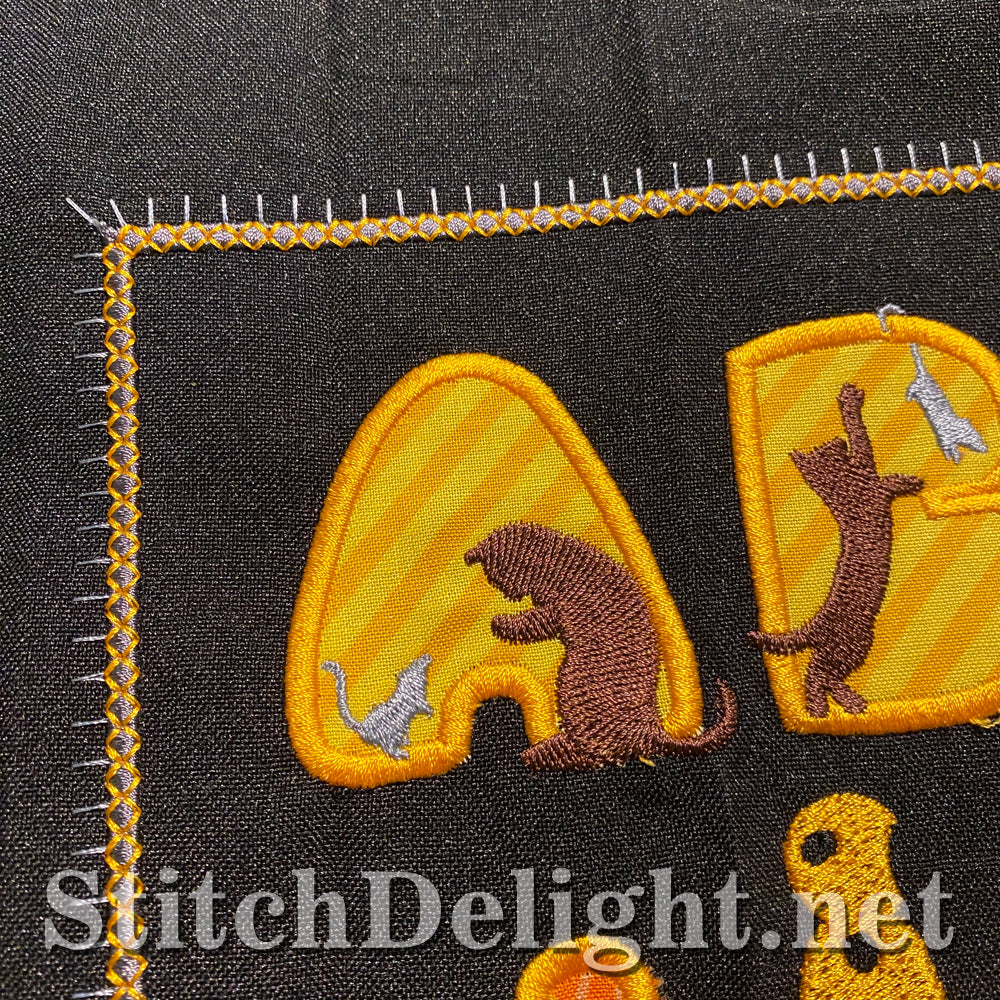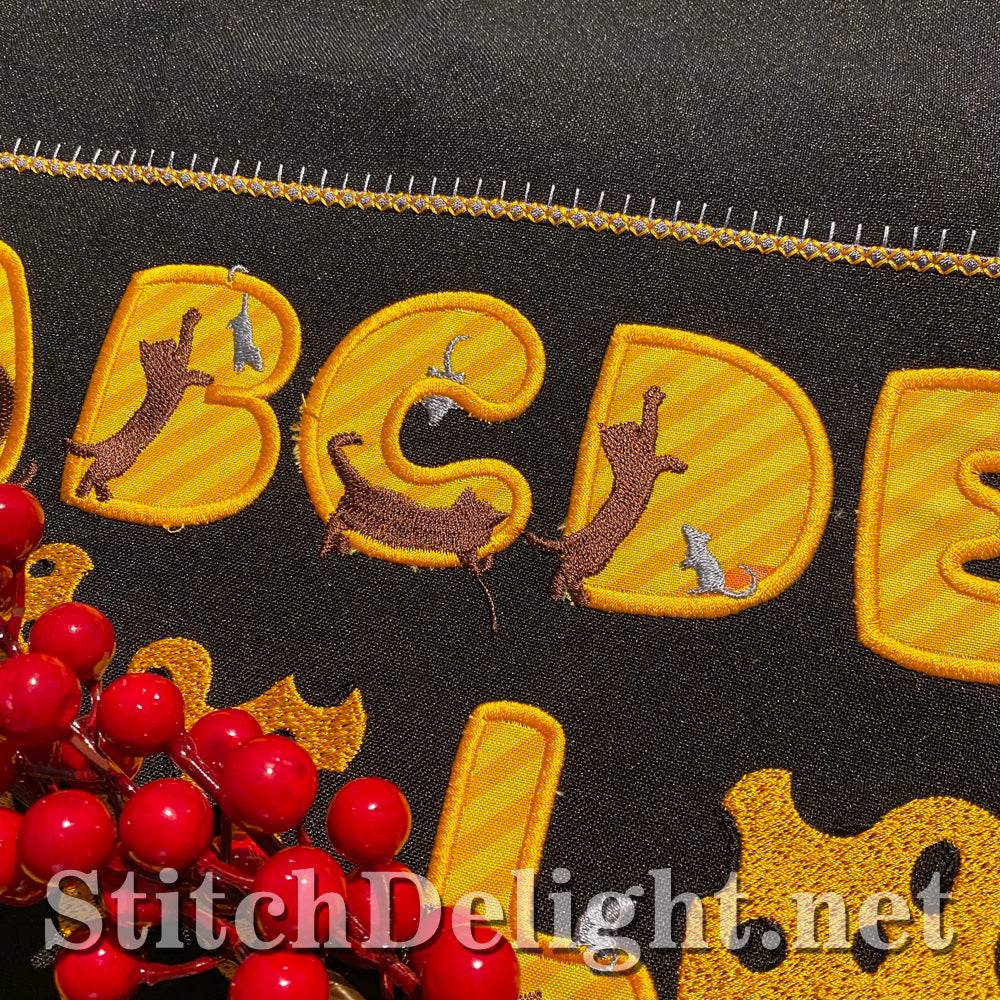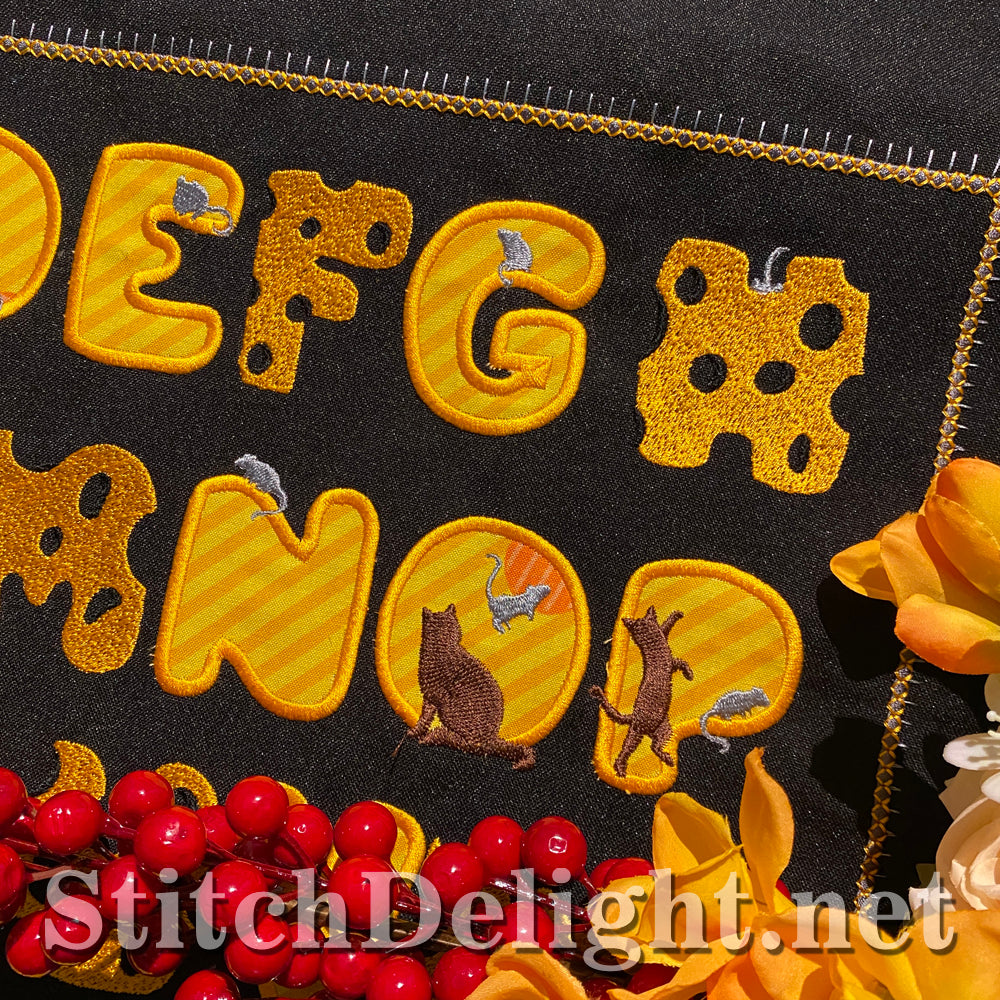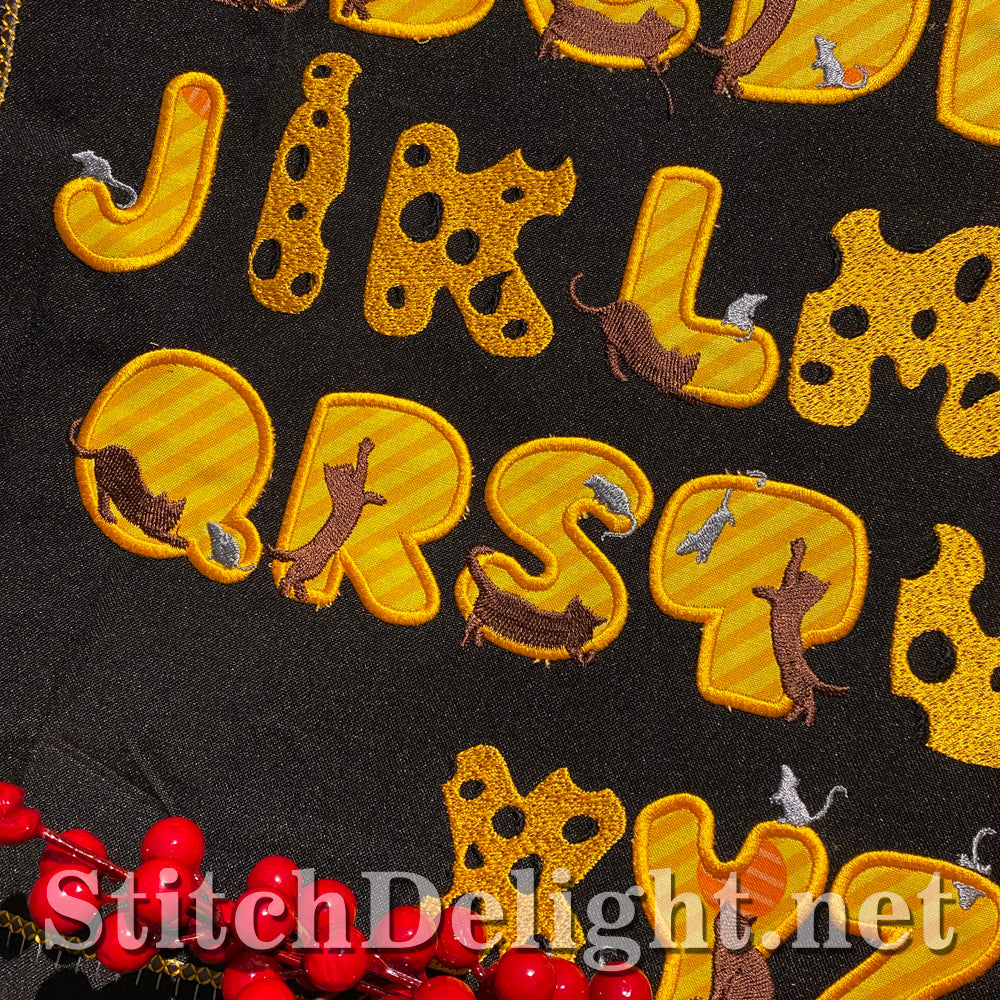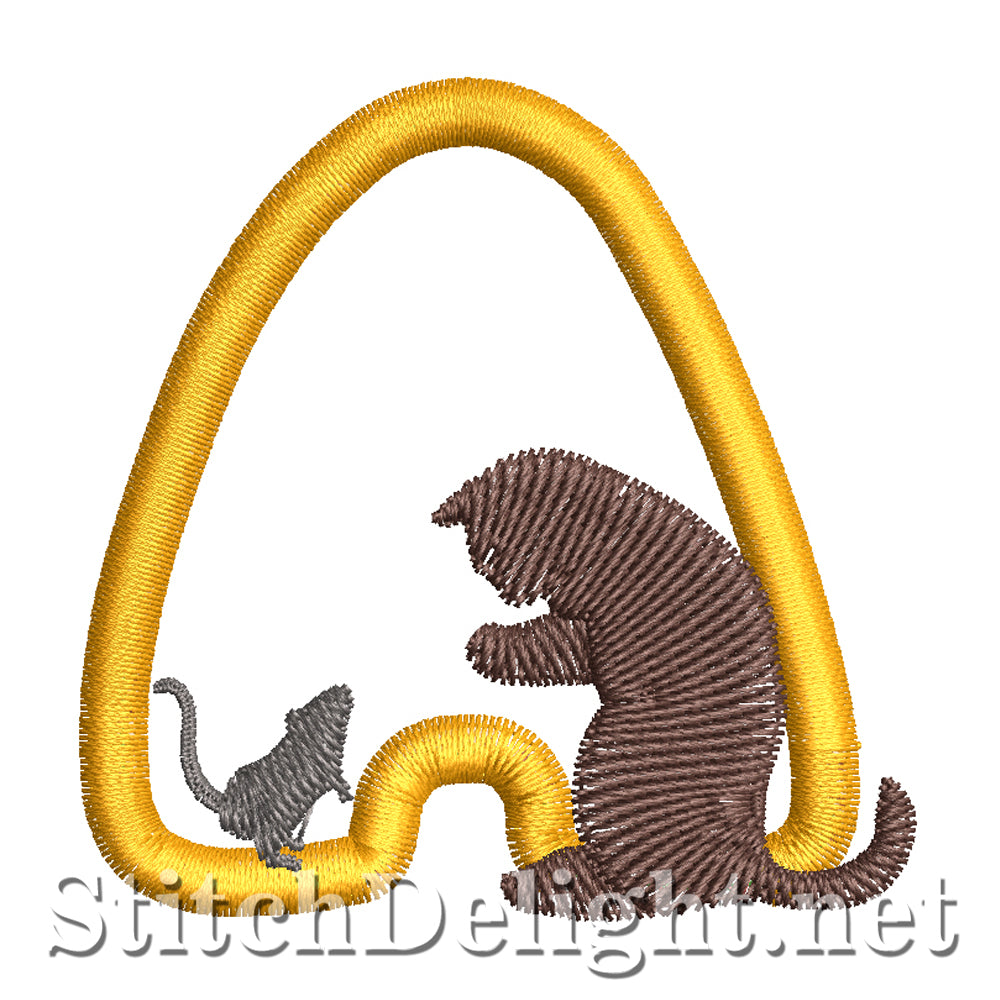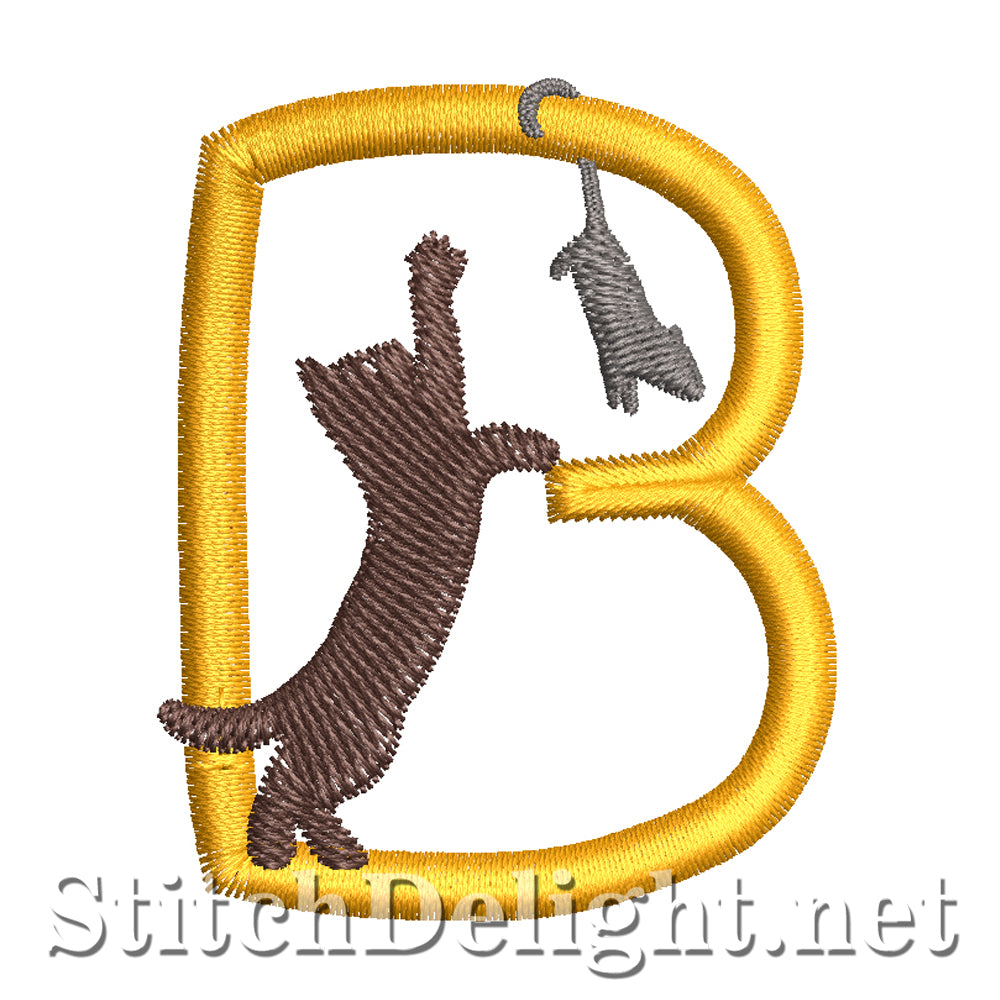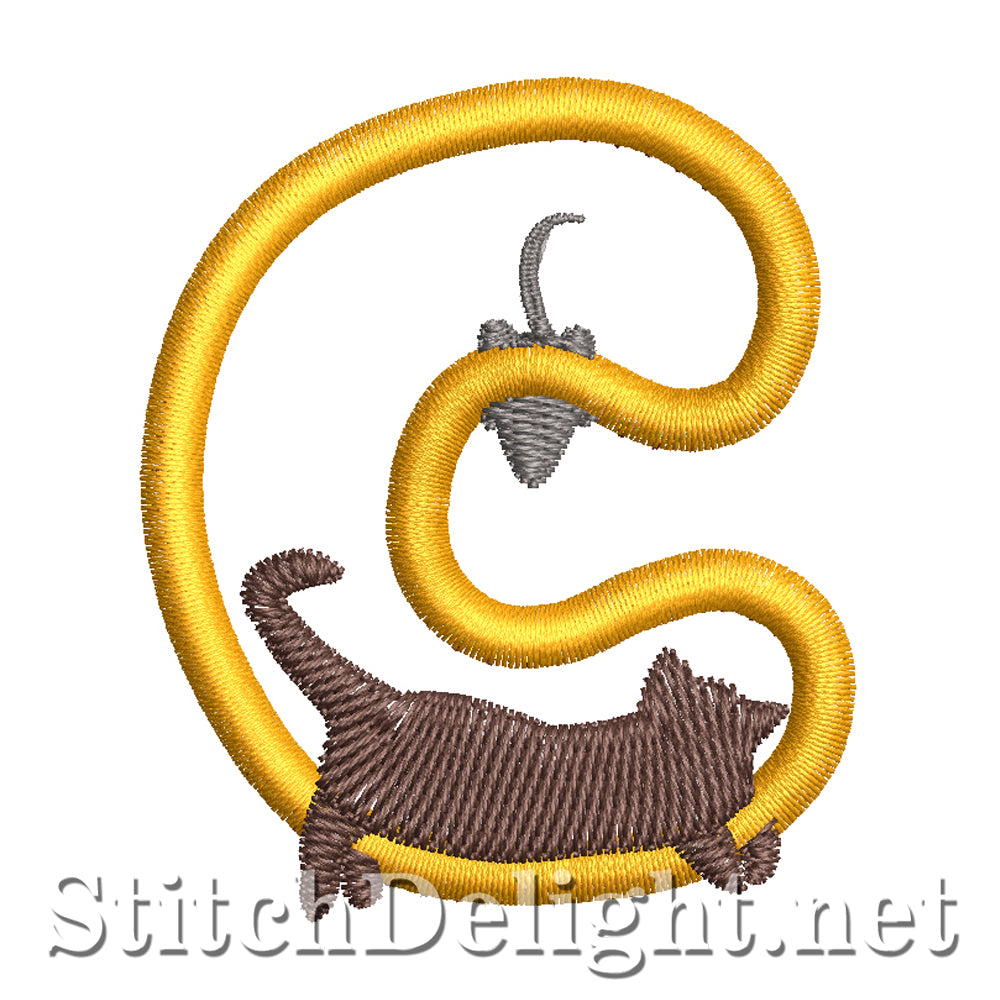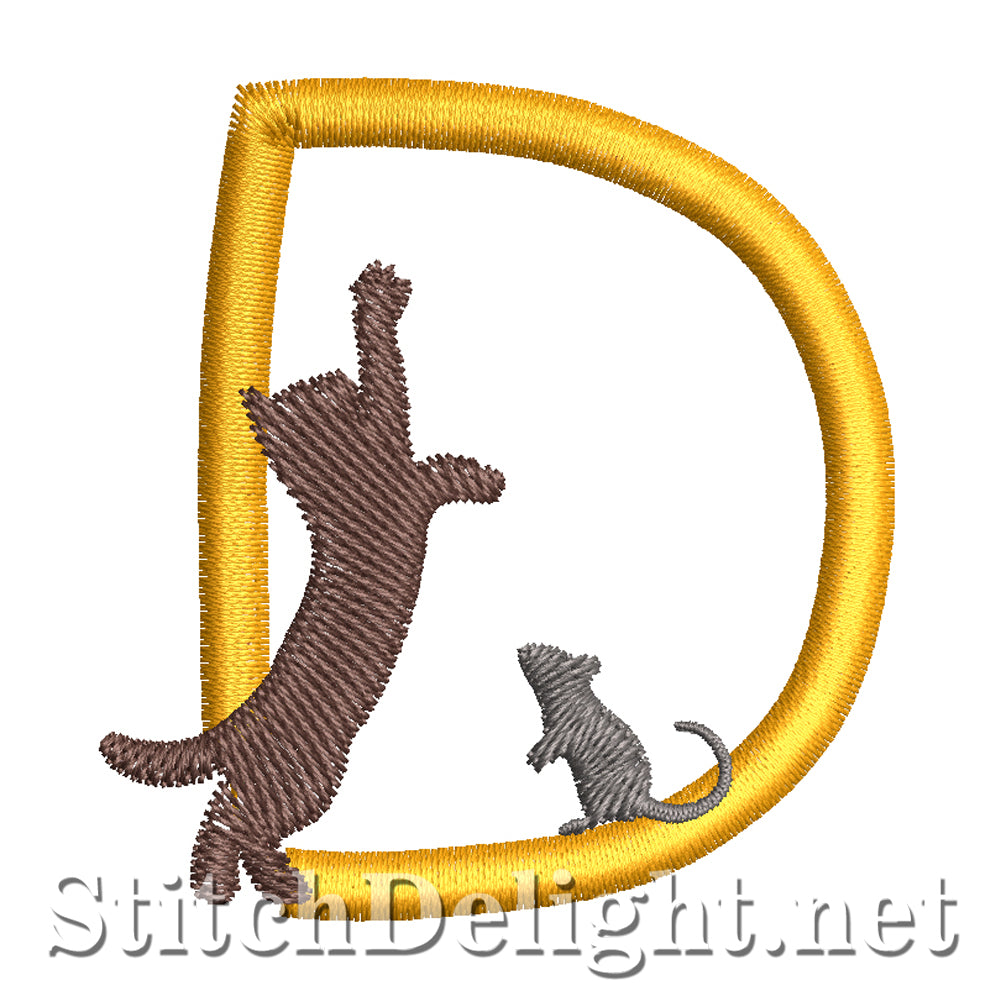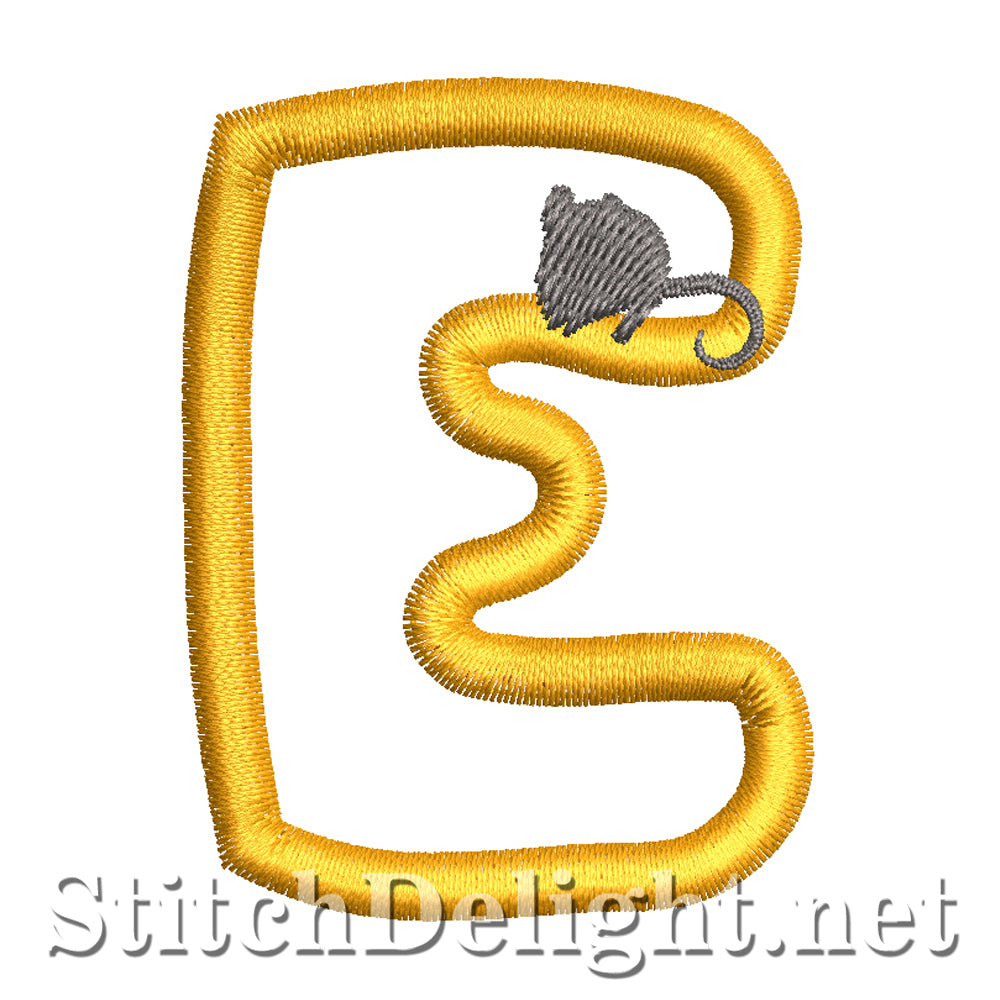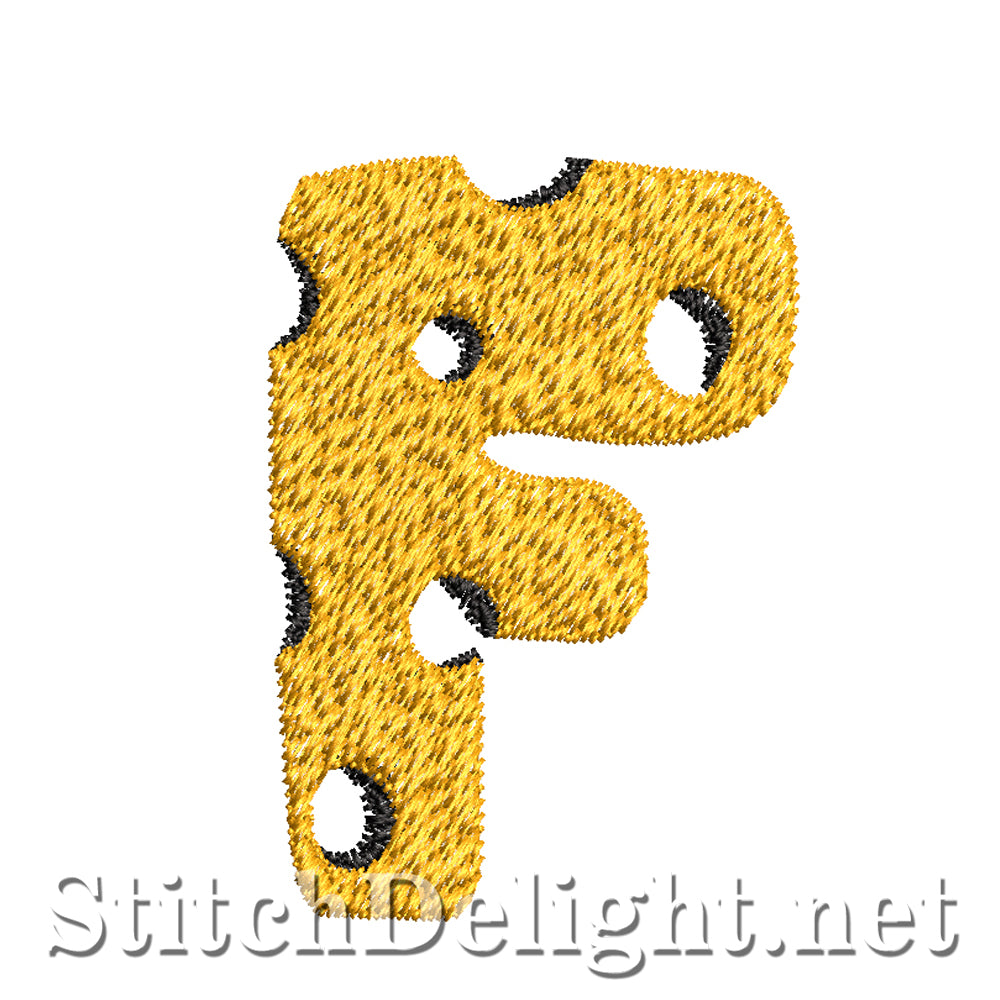
Welcome to February's collectors font, for the most part this is an applique font that stitches quickly and neatly. Random letters are made in stitchfill so be sure to match your colours accordingly.
All applique letters works the same, first you have a placement step. This is just a single run to outline where you need to place your applique fabric(Remember, you don't have to add fabric, I left out the fabric on the "Relax, take it cheesy" quote to show you what it would look like)
Before placing your fabric, spray some 505 Spray to help secure the fabric and stitch the next step which is a tack down step. When the tack down step is complete, cut any extra fabric away being careful not to cut the thread but cutting as close as you can.
From here you can let the machine do all the hard work.